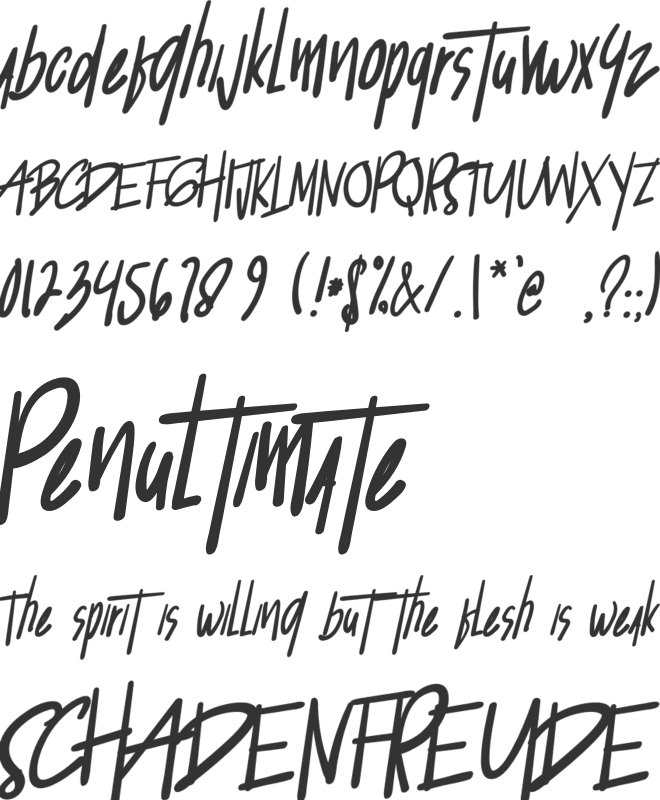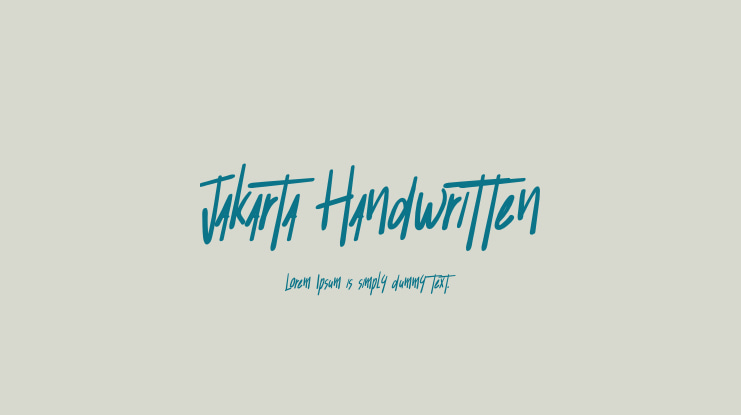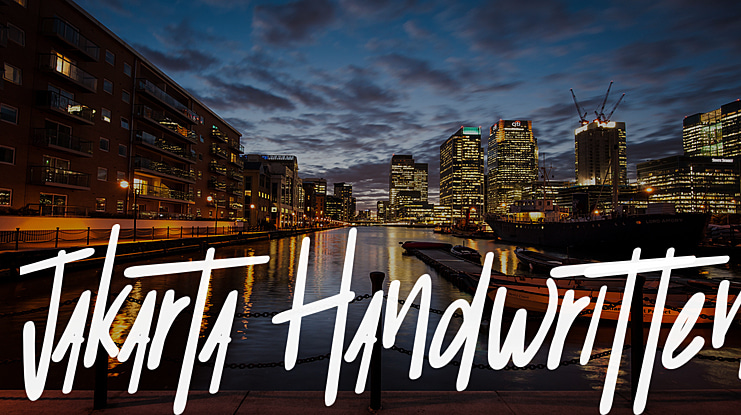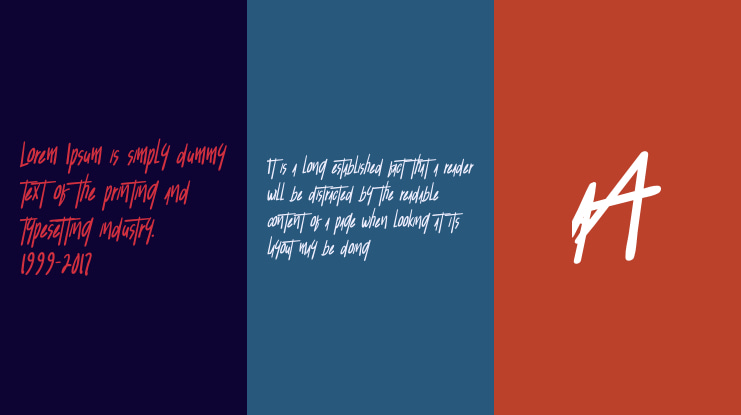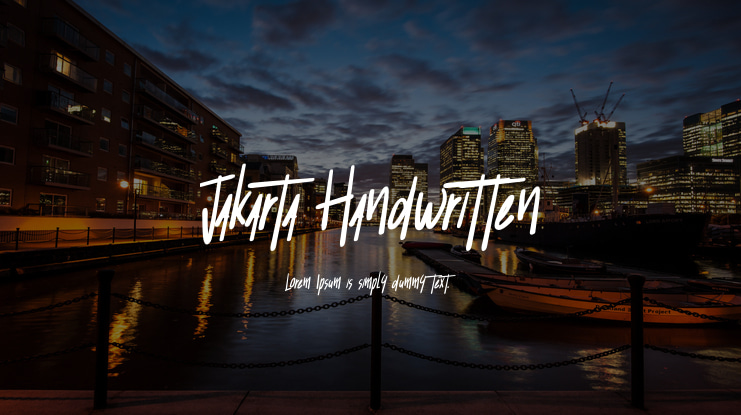
Jakarta Handwritten Font
Jakarta Handwritten Font is a great. It maintains its classy calligraphic influences while feeling contemporary and fresh. This versatility will appeal to a wide range of crafty ideas, from letterheads and titles to stationery.